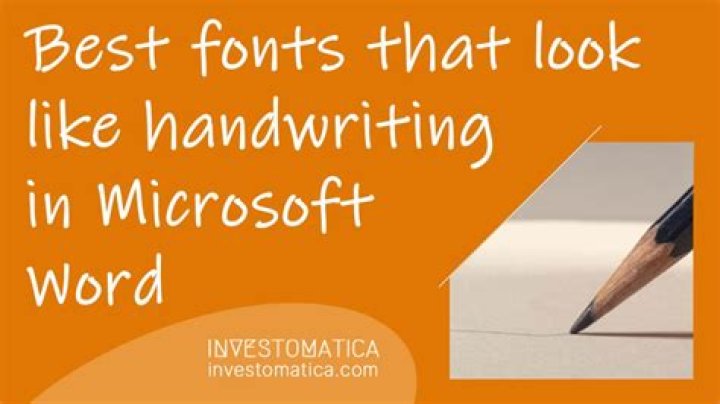
Lucida Calligraphy font family – Typography | Microsoft Docs.
Does Microsoft Word have a calligraphy font?
Microsoft Word offers a variety of cursive and handwriting fonts (or typefaces, which is the more accurate name for the different font styles), and they’re actually provided by the operating system rather than the Office version. You can make your own fonts in Windows 10, too!)
What font looks like it has been written by hand?
Handlee. Handlee is a loosely font based on the designer’s own handwriting. Its inconsistent curves give it a nice, human-like quality that is reflected in the characters. Handlee is a great font for any web page looking to add some personality.
How do I make my font look like handwriting?
Open Word and go to the Font menu. Scroll down the list to find options that look handwritten. Examples include Bradley Hand ITC, Lucinda Handwriting and Mistral. Select the font that best suits the writing style you want to use and start typing.
What font looks like writing?
Rumi is a font that looks like true handwriting.
What is the difference between calligraphy and Microsoft Word?
The selection of typefaces you see when using Microsoft Word exist as part of your computer… Calligraphy is an artistic writing style where you vary the pressure to create thick and thin lines, all in a single stroke. It usually involves a nibbed pen ️ or brush 🖌️.